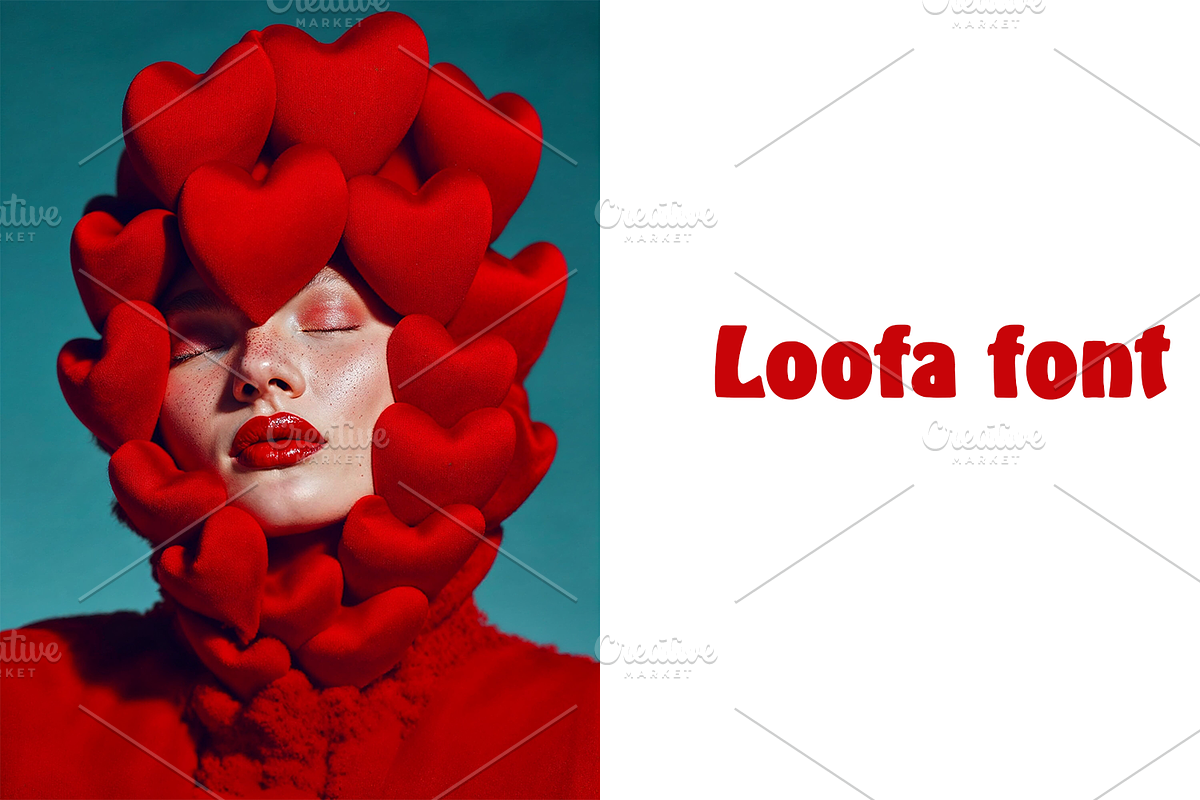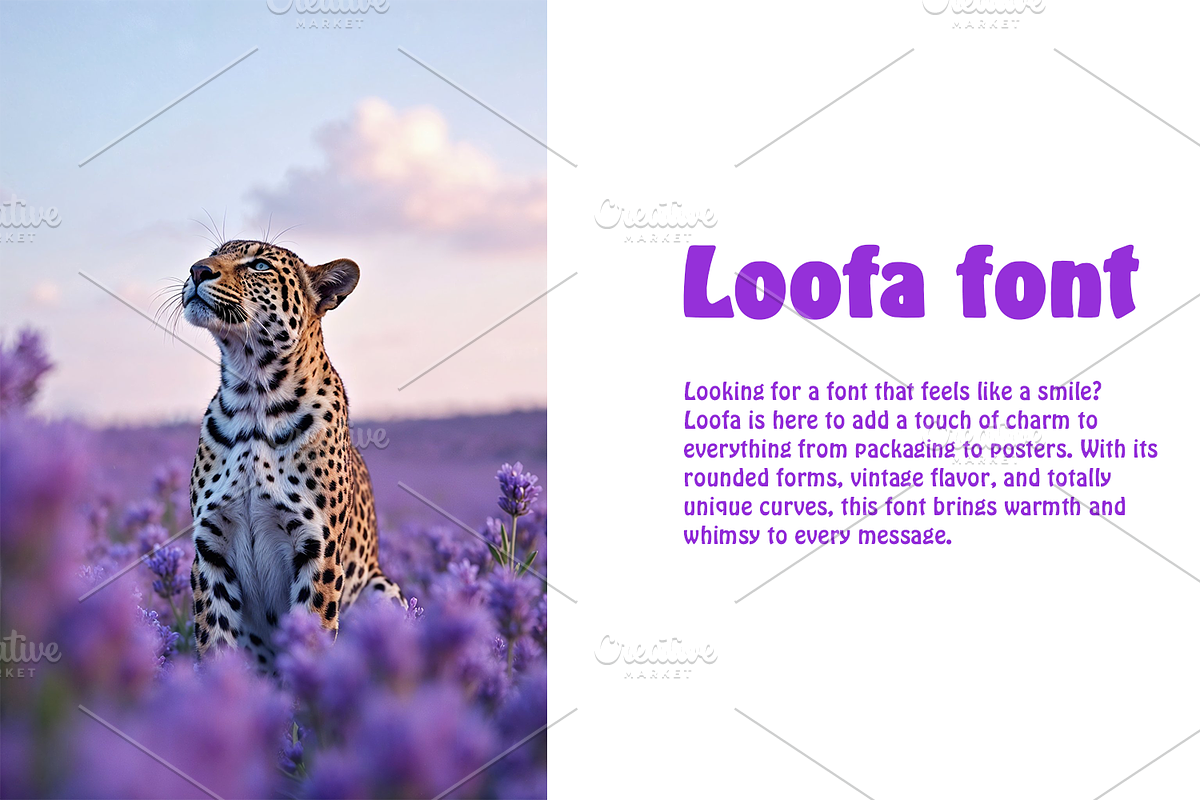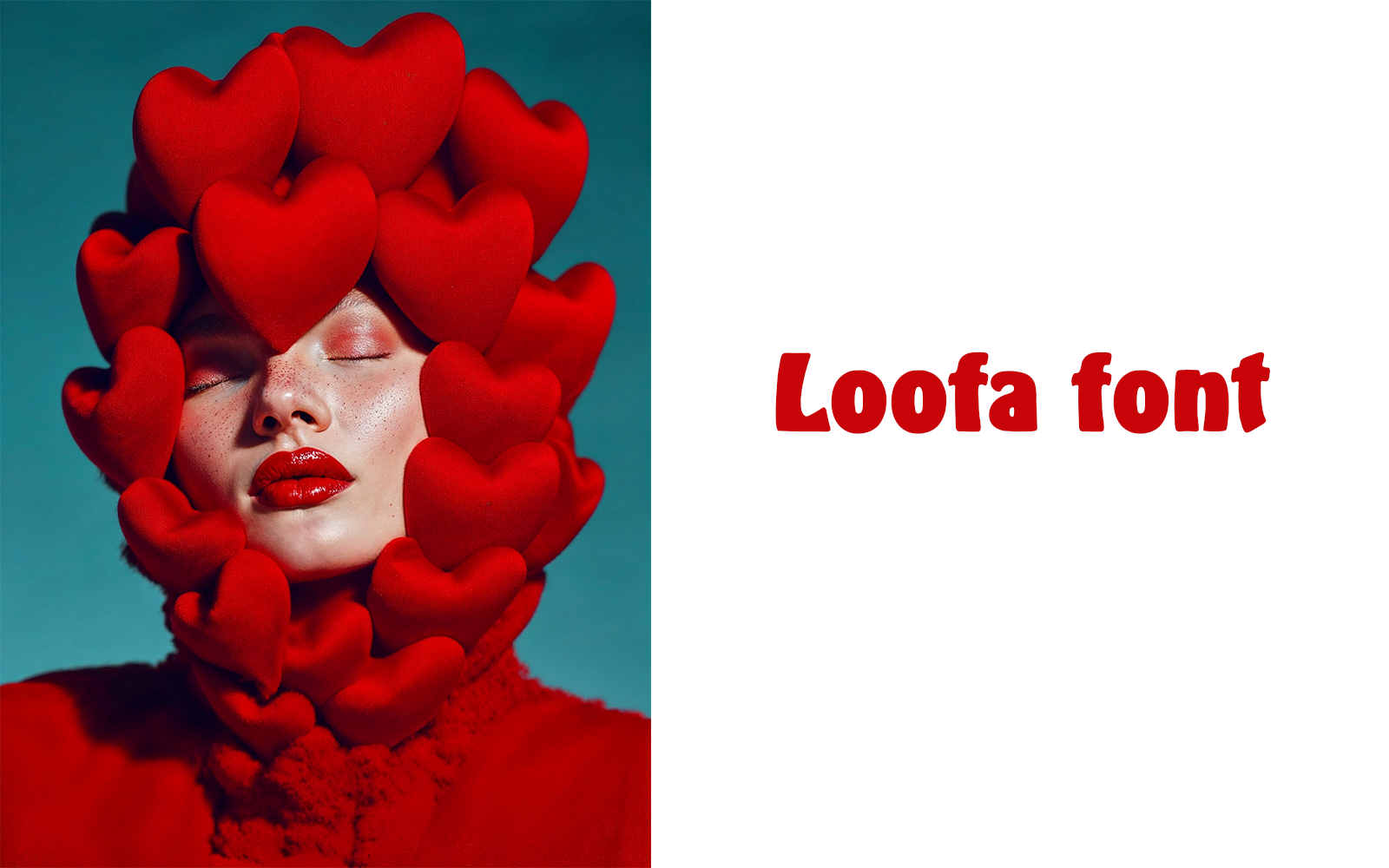
🍭 Introducing Loofa — Soft Shapes. Loud Personality.
Looking for a font that feels like a smile? Loofa is here to add a touch of charm to everything from packaging to posters. With its rounded forms, vintage flavor, and totally unique curves, this font brings warmth and whimsy to every message.
☀️ Full of retro energy & character
🧁 Perfect for branding, lifestyle, and handmade products
🧃 Curvy, bouncy, and joyfully nostalgic
Whether you're branding an ice cream shop, launching a boutique, or hosting a music festival — Loofa gives your words a voice that’s both bold and bubbly.
🎉 Loofa — Design that hugs back.